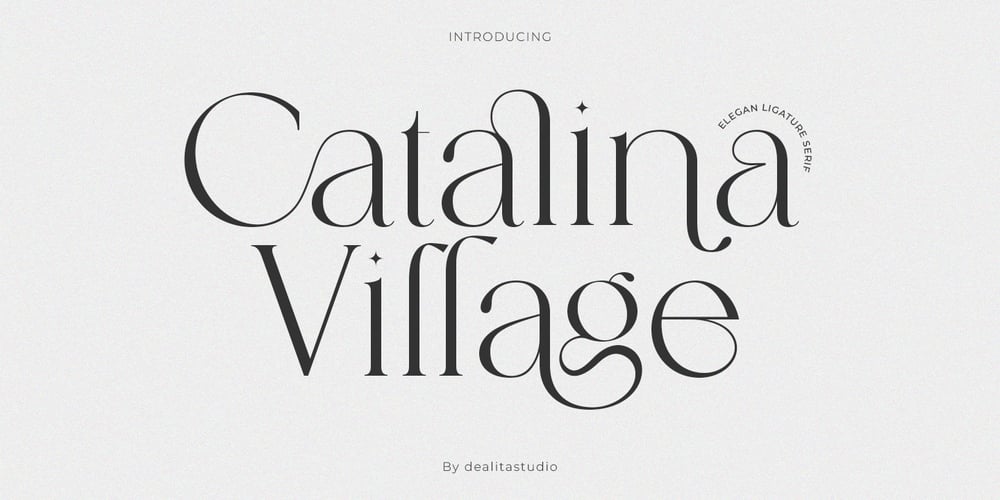
Catalina Village Font Family was designed by Januar Rahim and published by Dealita Studio. Catalina Village contains 1 styles and family package options. Catalina Village – a chic & elegant display of modern serif with beautiful contrast. Specially designed for fashion-themed projects, perfectly suitable for creating elegant, chic, lifestyle designs such as logos, titles, magazines, and more.